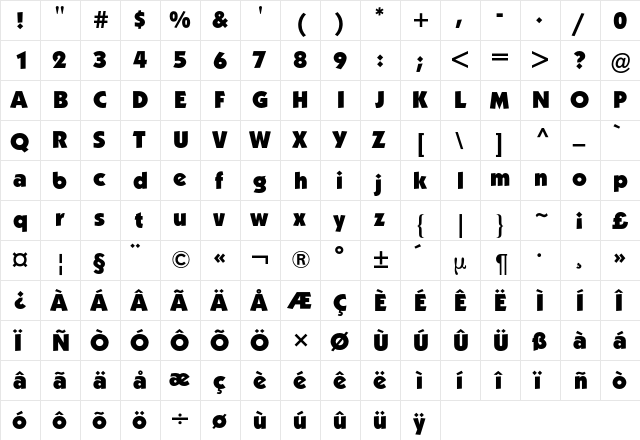
Kabel ITC BQ Regular
Design Context for Kabel ITC BQ Typeface
Kabel ITC BQ offers clean, dependable letterforms without strong stylistic allegiance, making it a practical choice for designers who need flexibility.